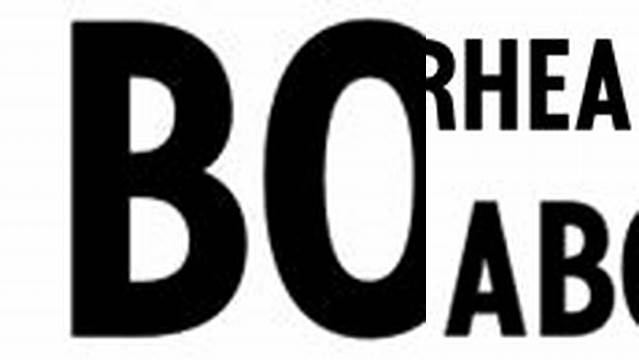
Rhea Bold Free Font: Your Ultimate Guide
1. What is Rhea Bold Font?
Rhea Bold is more than just a collection of characters; it's a statement. Think of it as that friend who's both bold and approachable. This font family exudes confidence, making it perfect for headings, logos, and any design element that needs to grab attention. But what exactly makes Rhea Bold so special? It's the careful balance between its strong, assertive lines and its smooth, rounded curves. This blend creates a typeface that's both powerful and easy on the eyes. You know, the kind of font that whispers, "I'm here," without shouting. In the world of typography, where fonts can evoke emotions and set the tone for entire brands, Rhea Bold stands out as a versatile and impactful choice. It's the kind of font that designers reach for when they want to make a lasting impression, without sacrificing readability or visual appeal. So, next time you're scrolling through font libraries, remember Rhea Bold – it might just be the missing piece of your design puzzle. And did we mention it's free? 😉
2. The History and Design of Rhea Bold
Okay, let's rewind a bit and talk about the history and design behind Rhea Bold. Every font has a story, right? Rhea Bold's story is one of modern elegance and thoughtful craftsmanship. While the exact origins might be shrouded in a bit of mystery (like many cool things are!), we can appreciate the design principles that make it tick. Imagine the font designer sitting at their desk, meticulously crafting each letterform, balancing thick strokes with delicate curves. That's the kind of dedication that goes into a font like Rhea Bold. The design leans towards a contemporary aesthetic, making it a perfect fit for today's digital landscape. Think clean lines, bold presence, and a touch of sophistication. It's a font that feels both current and timeless, a rare combination in the ever-evolving world of typography. But why is understanding the history and design important? Because it gives you, the designer, a deeper appreciation for the font's character. You'll start to see the subtle nuances, the intentional choices that make Rhea Bold so unique. And that understanding will help you use it more effectively in your projects. So, the next time you select Rhea Bold, remember the story behind it – the hours of design, the quest for balance, and the desire to create a font that truly stands out.
3. Key Features of Rhea Bold Font
So, what are the key features that make Rhea Bold, well, bold? (Pun intended!) It's more than just a thick, heavy font; it's a carefully constructed typeface with several standout characteristics. First off, let's talk about its weight. Rhea Bold has a commanding presence, making it ideal for headlines and titles that need to grab attention. But it's not just about being thick; it's about the distribution of that thickness. The strokes are balanced, creating a visual harmony that prevents the font from feeling clunky or overwhelming. Think of it as a perfectly sculpted statue – strong and imposing, yet graceful and refined. Another key feature is its legibility. Despite its boldness, Rhea Bold remains remarkably easy to read, even at smaller sizes. This is crucial, because a beautiful font is useless if your audience can't decipher it. The letterforms are clear and distinct, ensuring that each character stands out. And let's not forget its versatility. Rhea Bold isn't a one-trick pony. It can be used in a wide range of design applications, from website headers to printed posters. Its modern aesthetic makes it a great fit for tech startups, creative agencies, and anyone who wants to project a sense of confidence and innovation. So, when you're choosing a font that needs to make a statement, remember the key features of Rhea Bold: its commanding weight, its excellent legibility, and its versatile style. These are the qualities that set it apart and make it a true design asset.